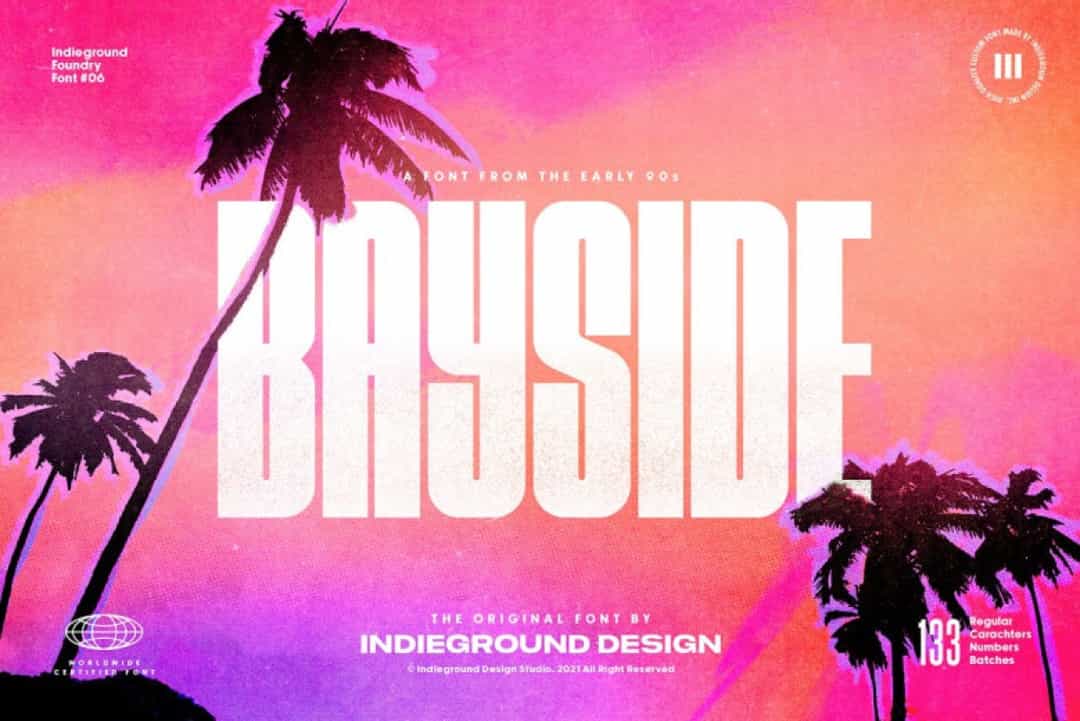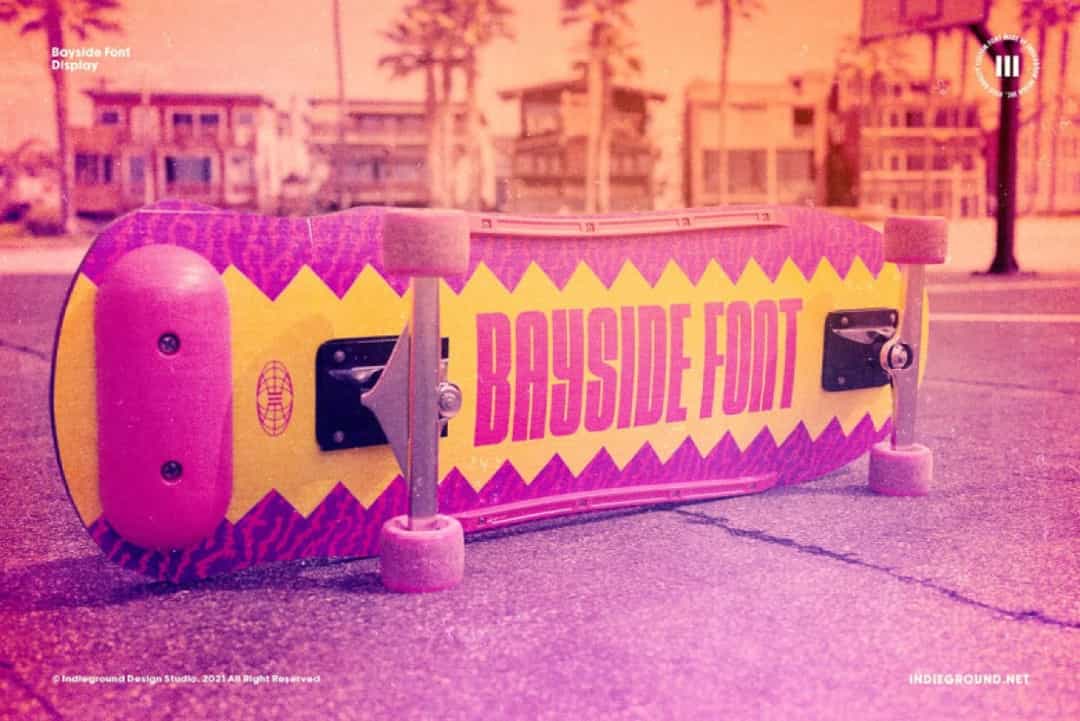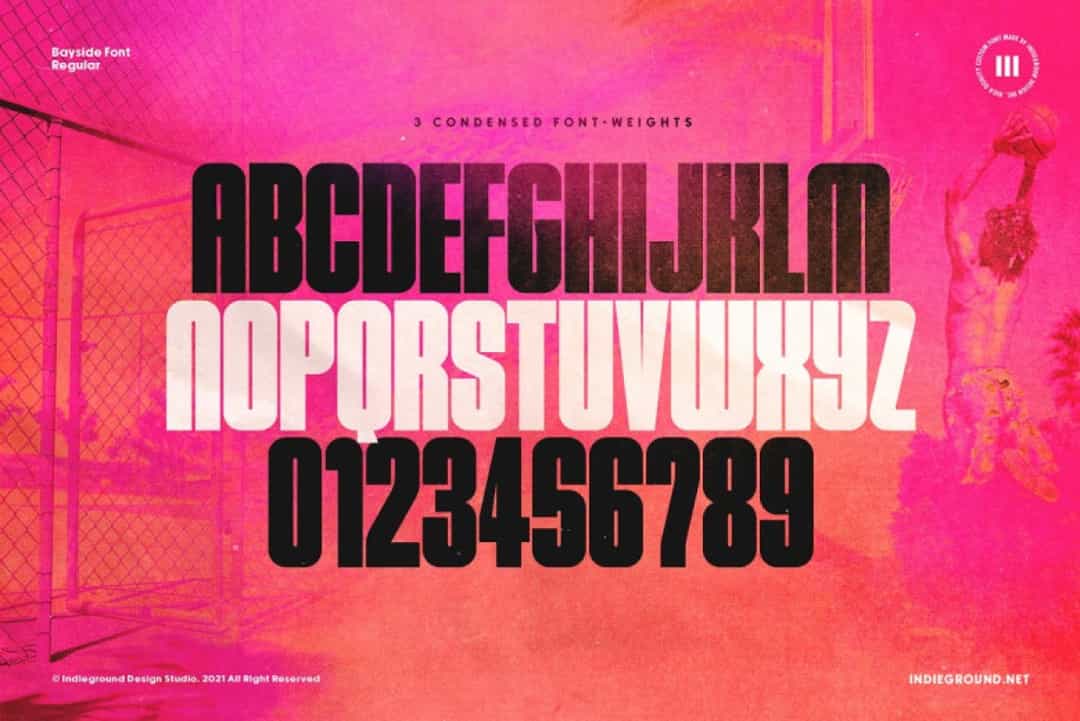
Bayside Display Font was created by Indieground Team as an elegant condensed display sans serif font reminiscent of retro, summertime atmospheres of 1980s and 90s. Perfect for elegant settings that harken back to Miami Deco Art of the 1980s while remaining vibrant thanks to neon colors from 90s.